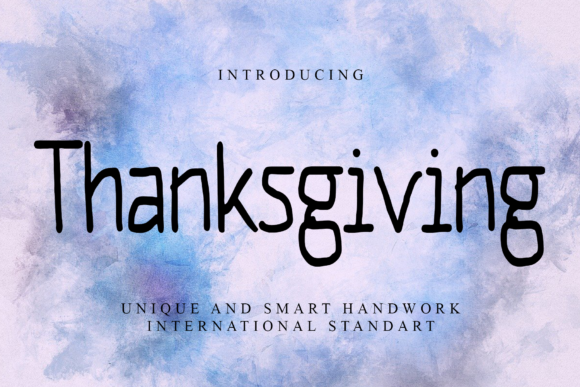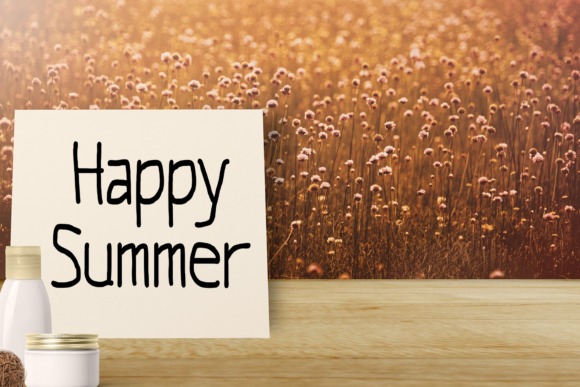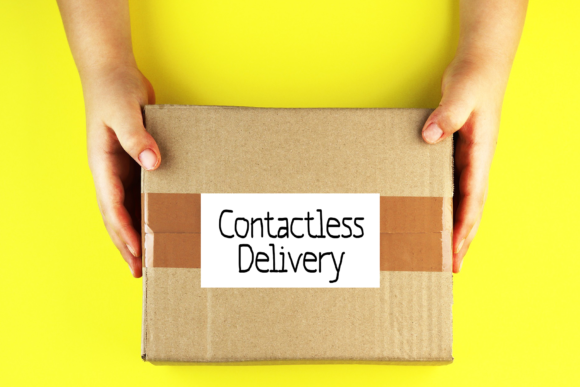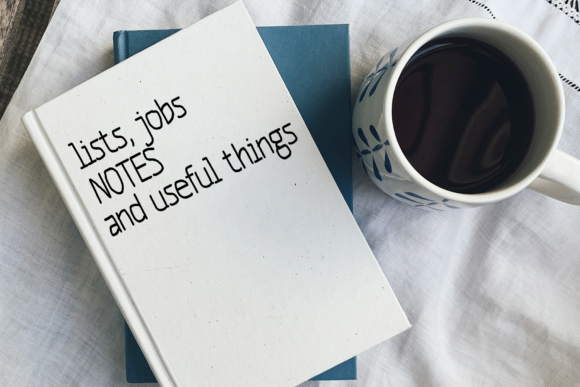
About Thanksgiving Font
Thanksgiving is a fun and quirky handwritten font. It will looks amazing on wedding invitations, thank you cards, weddings, greeting cards, logos, business cards and any other design that needs a handwritten touch.